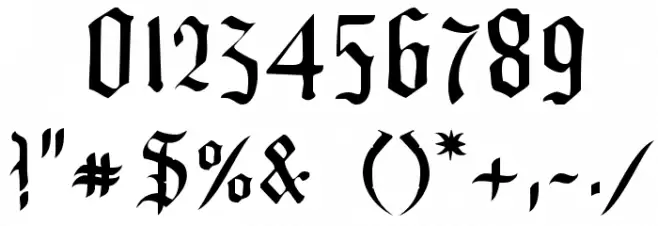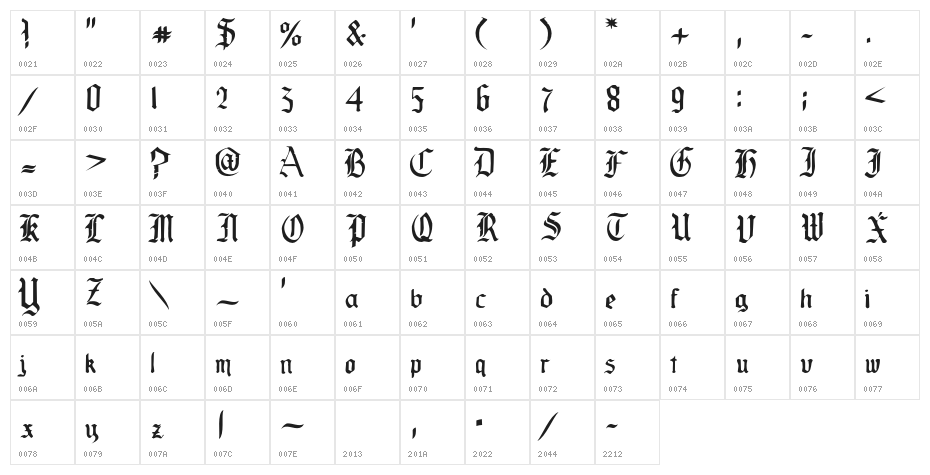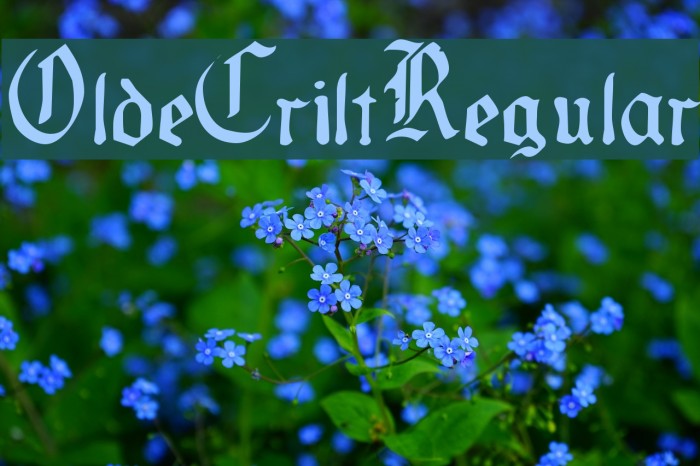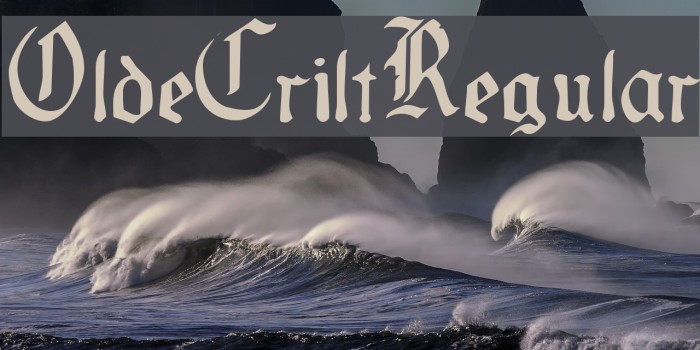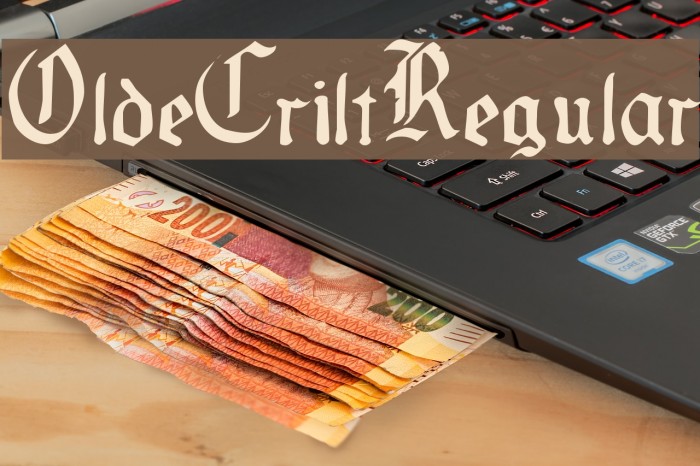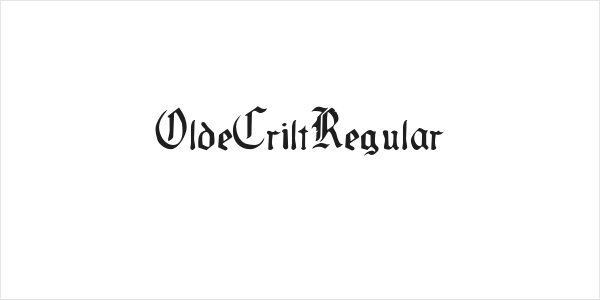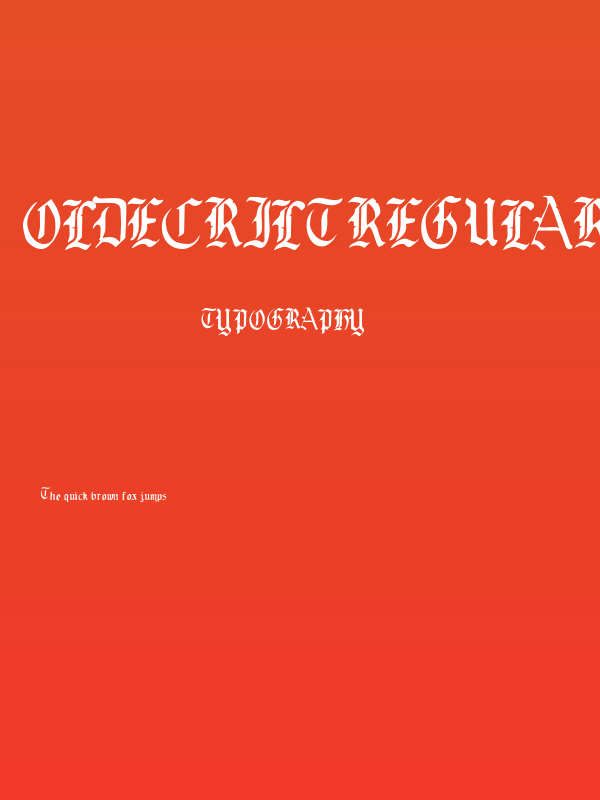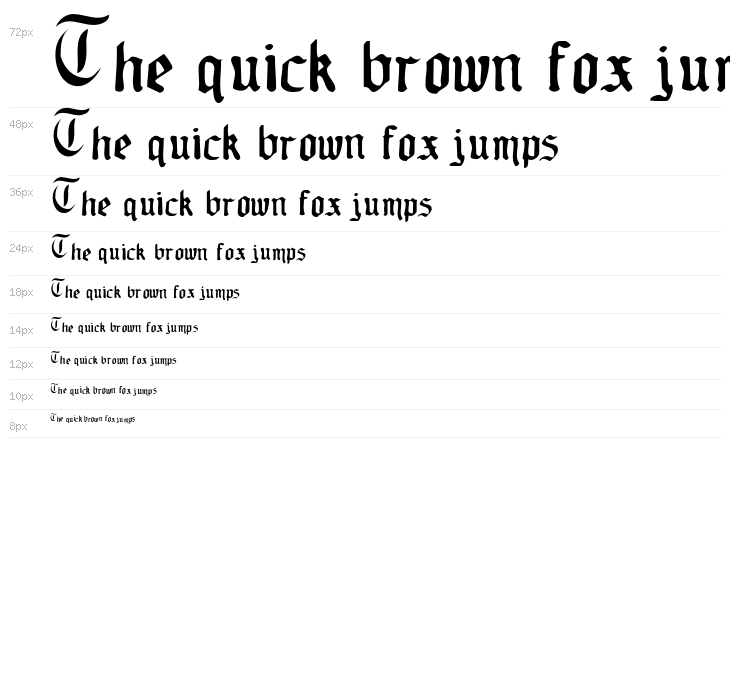
OldeCriltRegular Font
OldeCriltRegular Description
This font embodies a classic blackletter style, reminiscent of medieval script. The characters are bold and ornate, with intricate detailing that gives them a historical and gothic appearance. The uppercase letters are particularly elaborate, featuring sharp angles and decorative flourishes. The lowercase letters maintain the same stylistic elements but are slightly more subdued, allowing for better readability. Numbers and special characters are consistent with the overall theme, providing a cohesive look across all glyphs. This font is ideal for projects that require a touch of antiquity and elegance.
Overall StyleVintage
Proposed ProjectsSuitable for historical documents, gothic-themed designs, book covers, posters, and branding that requires a vintage or medieval touch.